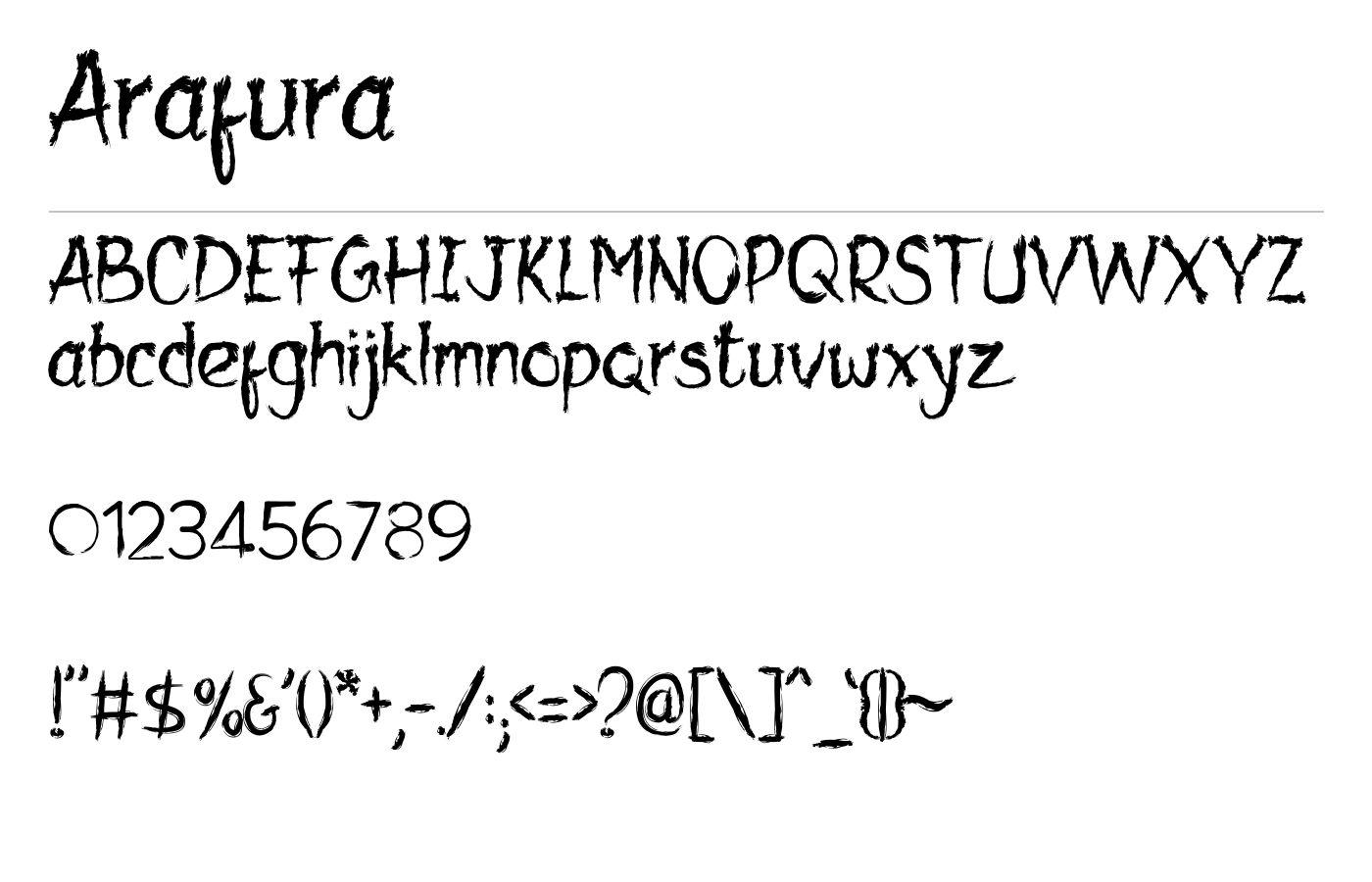
Arafura is a unique handwritten-style font with a rough, textured appearance that gives it an organic and artistic feel. Its irregular strokes and casual letterforms make it perfect for creative projects, informal branding, or designs seeking a personal, expressive touch. This font works well in headlines, posters, and packaging where a distinctive and lively personality is desired.
Arafura Font
About Arafura Font